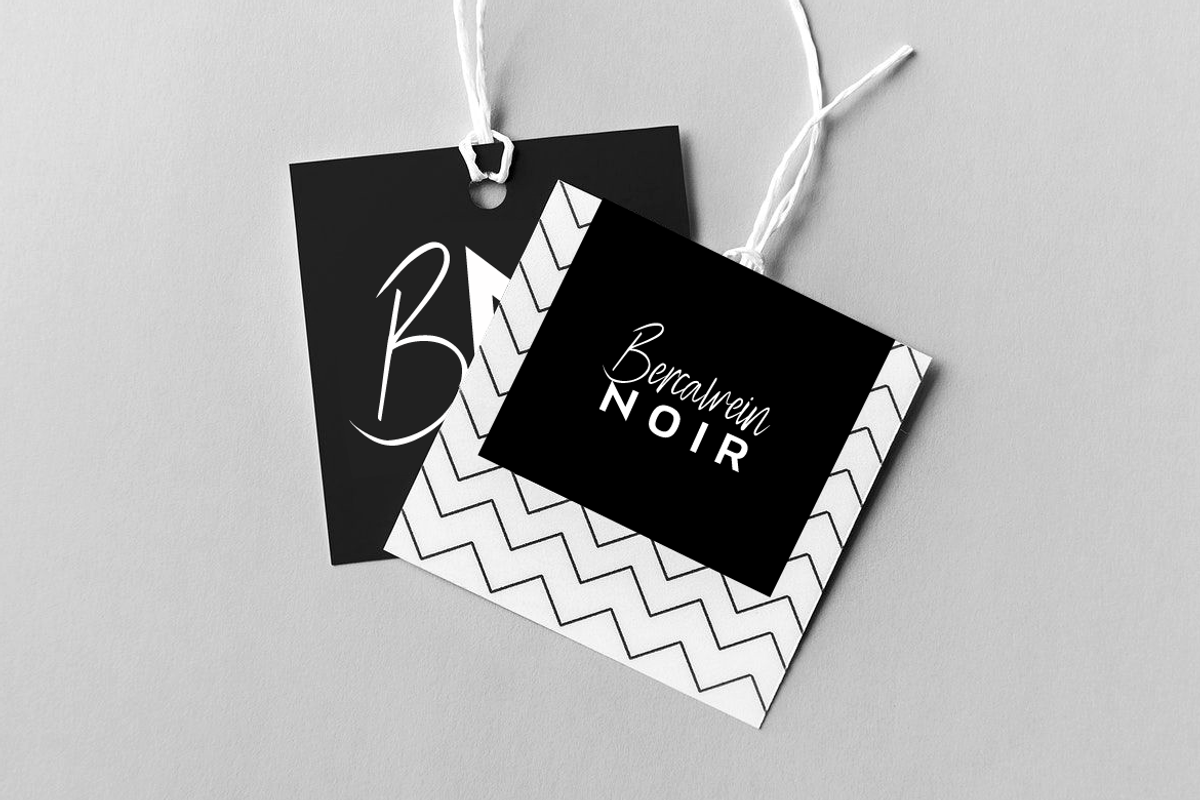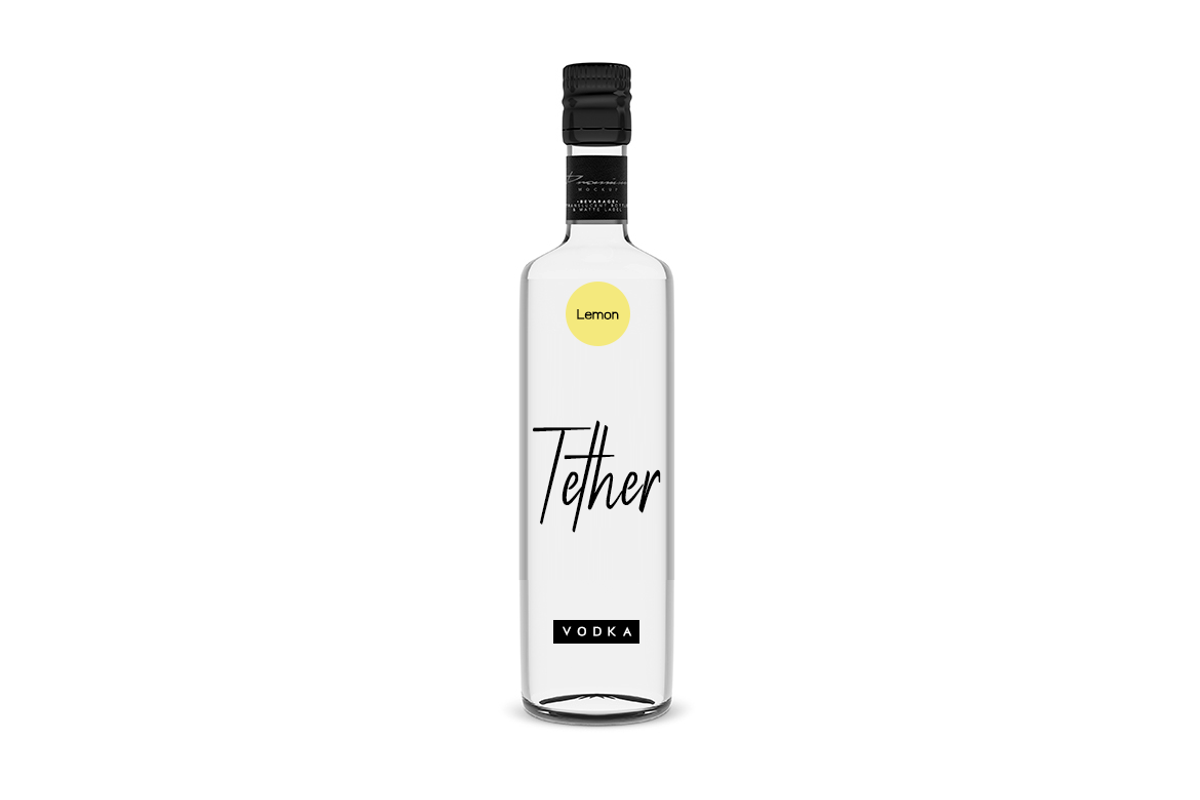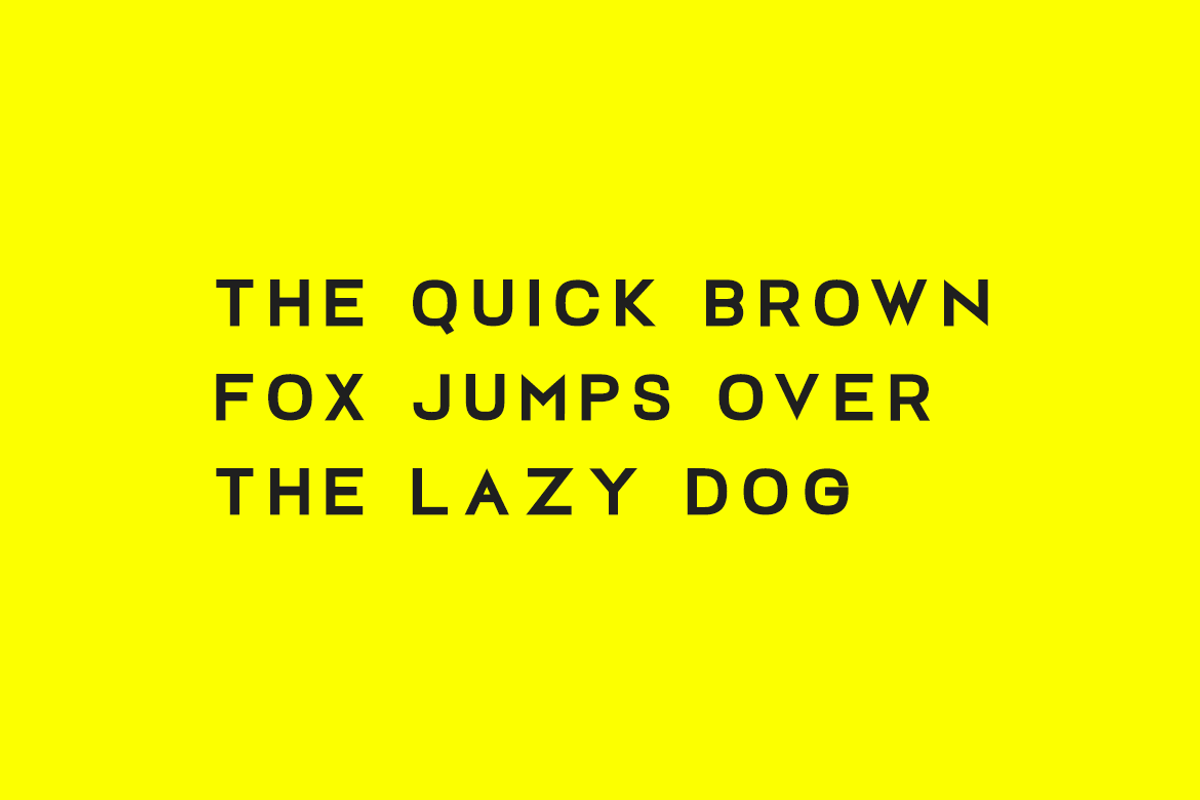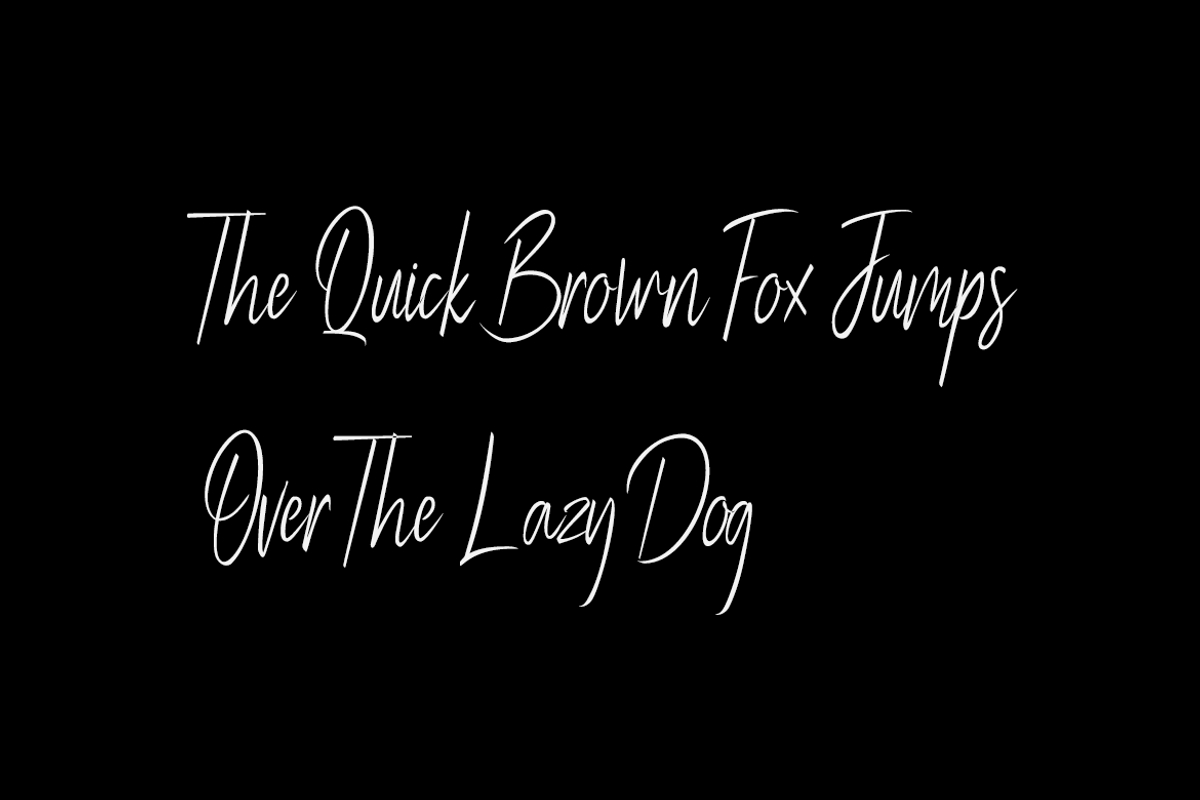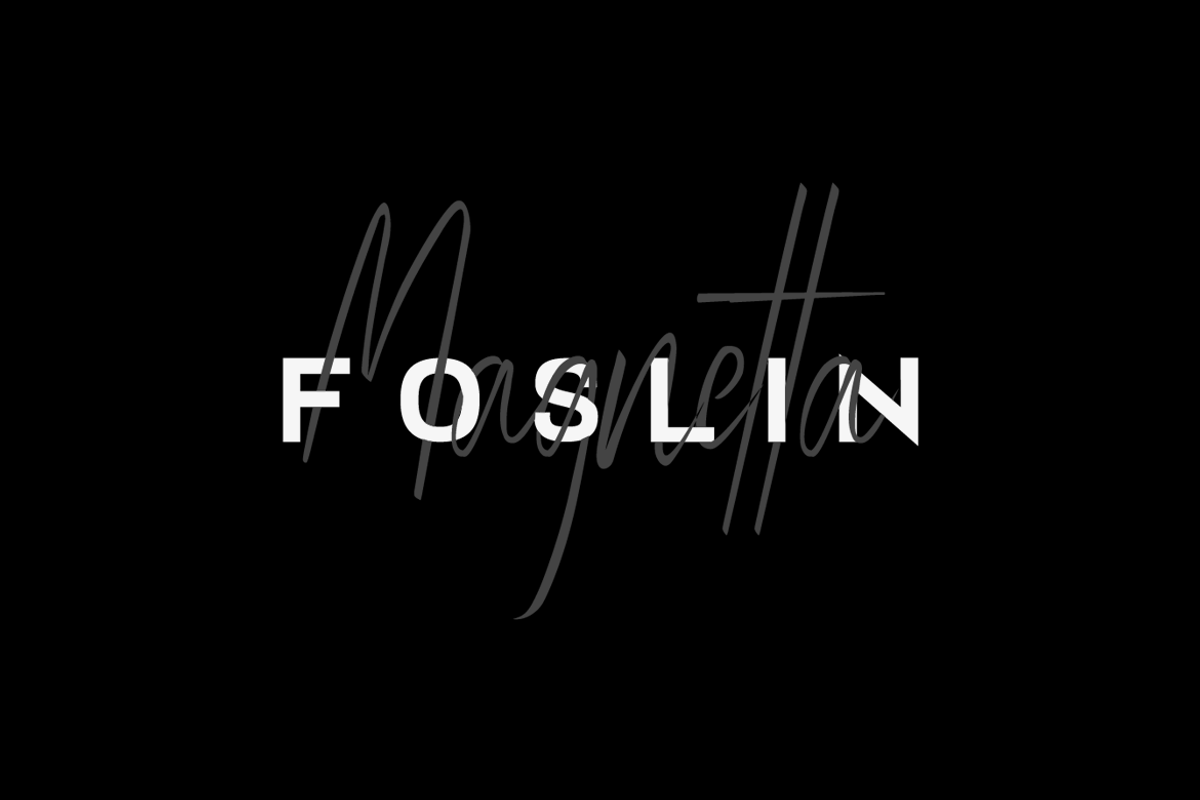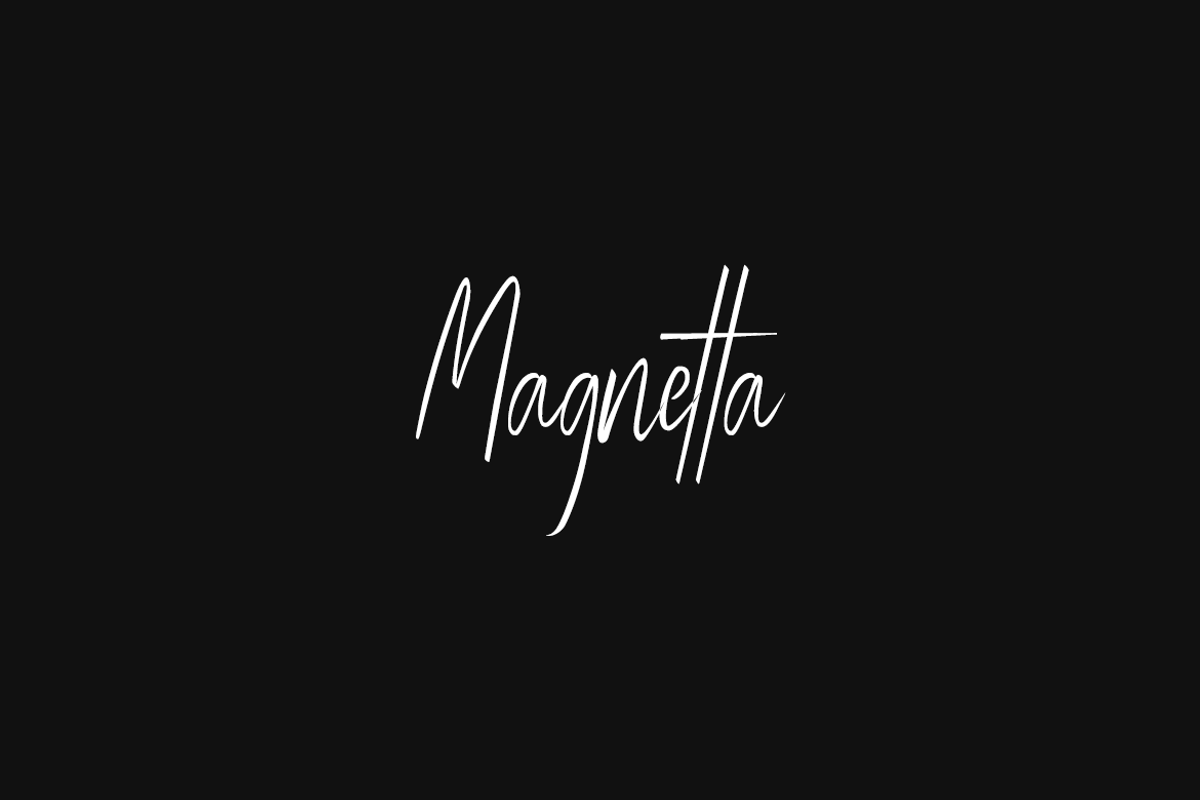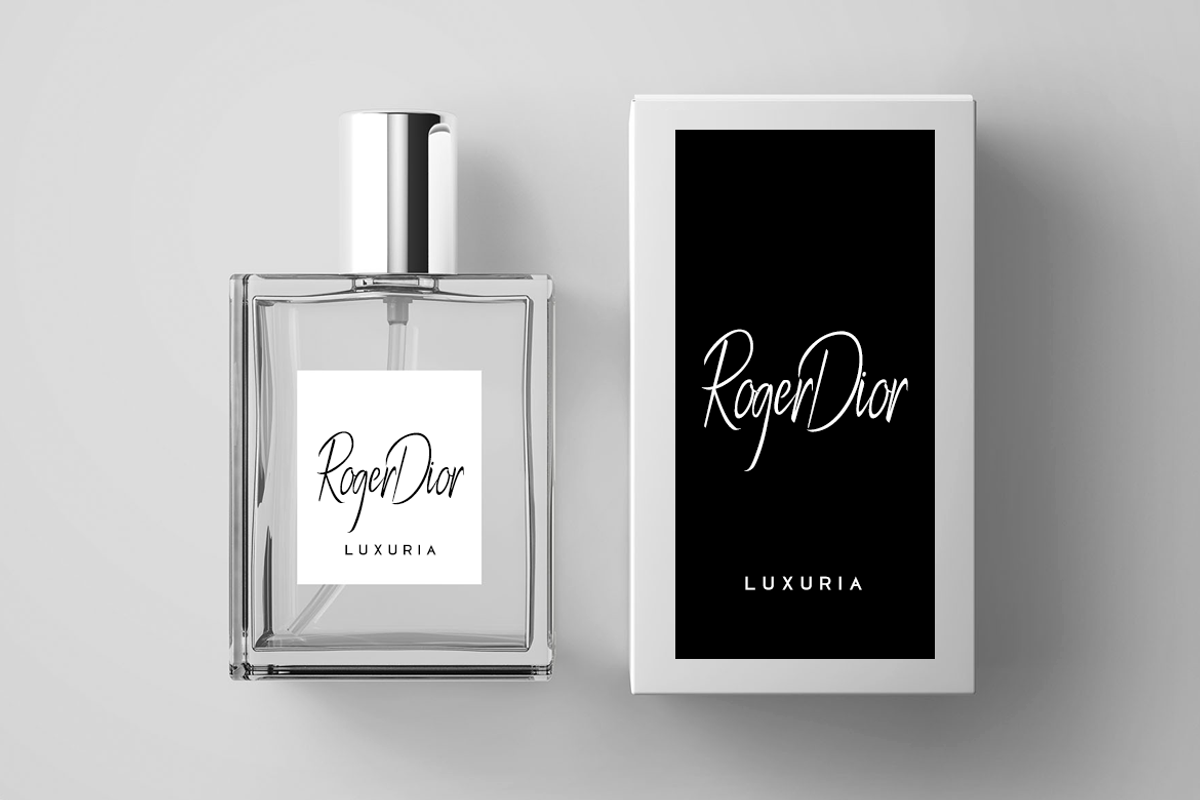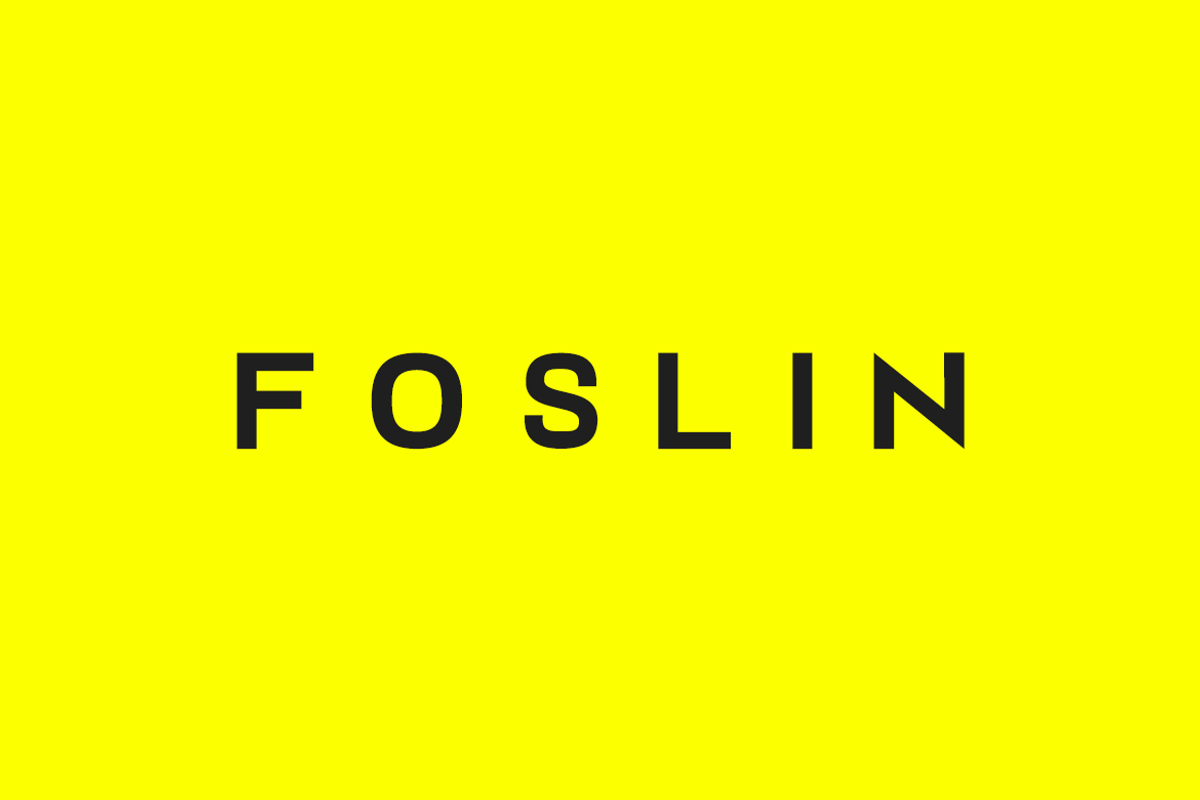
FOSLIN & MAGNETTA - Luxury Font Duo
Foslin & Magnetta - A unique combination of a beautiful handwritten font and a minimal sans-serif font that can create striking luxury designs and outstanding logos. Best suited for logotypes / headlines / branding / luxury designs / signature / branding / logotype / wedding invites / greeting cards / promotional graphics and many more. Just check the examples shown here to get a basic idea about how capable these fonts are when combined.
FOSLIN comes with a total of 6 fonts having 3 weights (Regular / Bold / Black). MAGNETTA comes with a single style handwritten font with advanced, in-depth kerning to make sure the font looks amazing on all possible letter combinations.